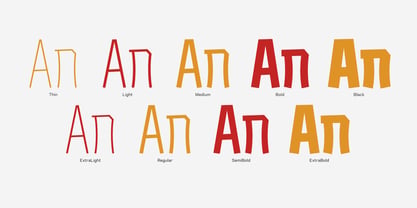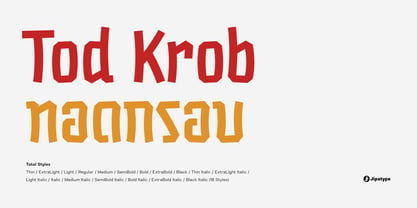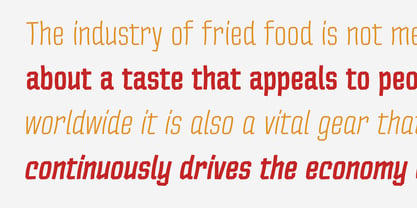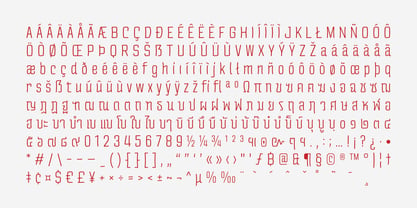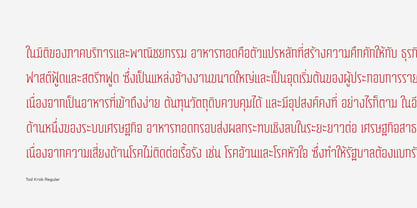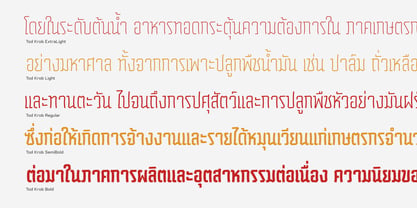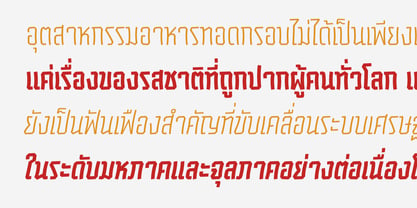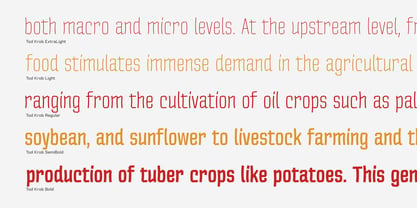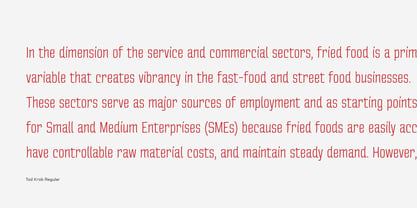
Tod Krob
by Jipatype
The Tod Krob Font Family was designed by Anupap Jaichumnan and published by Jipatype. Tod Krob contains 18 styles and family package options. More about this family
Tod Krob is a condensed typeface family that bursts with playful, organic energy, taking direct inspiration from the rustic and irregular shapes of golden, hand-cut French fries. Its name, which means "deep-fried to a crisp" in Thai, perfectly reflects the font’s handcrafted aesthetic. Rather than following rigid geometric rules, the strokes feature natural curves and intentional irregularities that evoke a sense of movement and friendliness. The condensed proportions are meticulously balanced to ensure high legibility while remaining space-efficient, making it an ideal choice for impactful layouts. The Thai characters are designed in a modern loopless style, providing a seamless and sophisticated visual harmony with the Latin counterpart. With a comprehensive range of 18 styles—spanning 9 weights from Thin to Black with matching italics—Tod Krob offers exceptional versatility for various creative demands. It is a quintessential choice for food and beverage branding, fast-food identities, and snack packaging that aims to look fresh and appetizing. Beyond the culinary world, its vibrant and spirited personality makes it perfect for bold headlines, event posters, and digital content that requires a touch of whimsy and a handcrafted feel. Tod Krob is a flavorful design tool ready to add a distinct "crunch" and a memorable personality to any creative project.
Designers: Anupap Jaichumnan
Foundry: Jipatype
Jipatype is a type foundry founded and operated solely by Anupap Jaichamnarn, based in Bangkok, Thailand. Officially established in 2022, the foundry's journey began in 2019. The name "Jipatype" is derived from the Thai word “Jipatha” (จิปาถะ), meaning "miscellaneous" or "variety." This name reflects the diverse design concepts and influences that shape Jipatype’s versatile font collections.